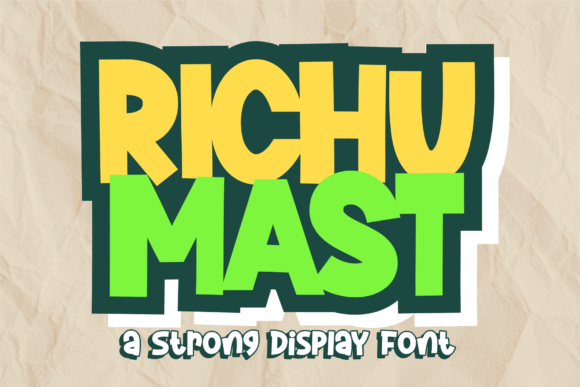
Unleash the exuberance of creativity with Richu Mast Font, a playful display font that ignites your designs with a burst of joy and color. Inspired by the enchanting world of childhood, this font captures the essence of imagination and wonder, transforming your projects into vibrant masterpieces.
With its distinctive layered structure, Richu Mast adds depth and dimension to your designs, making them stand out from the crowd. The carefully crafted characters exude a sense of playfulness and charm, evoking a nostalgic longing for simpler times.
Immerse yourself in a spectrum of creative possibilities with Richu Mast Font. Whether you're crafting captivating quotes, designing eye-catching T-shirts, creating dynamic flyers, or branding your YouTube channel, this font breathes life into your vision.
Its versatility extends to labels, logos, and any other design seeking a touch of whimsy and fun. Let Richu Mast Font be your creative companion, guiding you on a delightful journey where imagination knows no bounds.